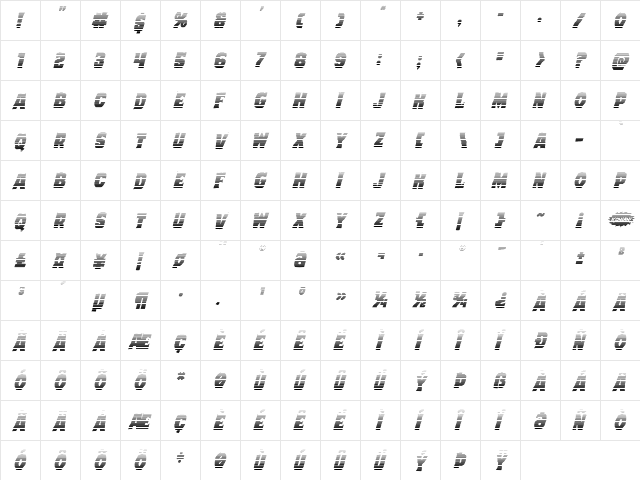
Dusk Demon Gradient Italic Regular
Design Context for Dusk Demon Gradient Italic Typeface
Dusk Demon Gradient Italic is a composed and adaptable typeface that performs quietly and consistently across a wide range of design contexts. The slanted form adds forward momentum and visual energy.
Pro Tip: Use Dusk Demon Gradient Italic for emphasis, pull quotes, and subheadings where its slanted energy can add rhythm to the layout.